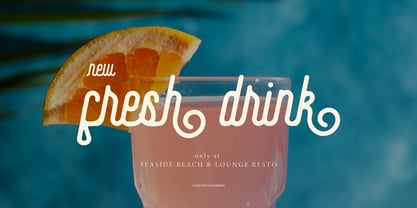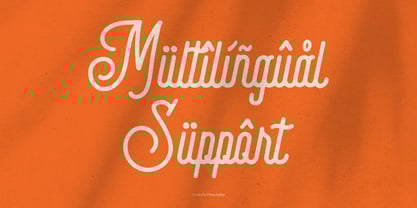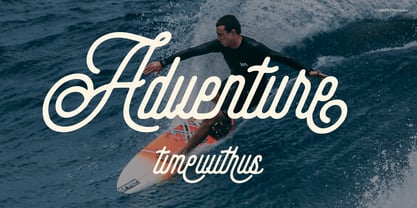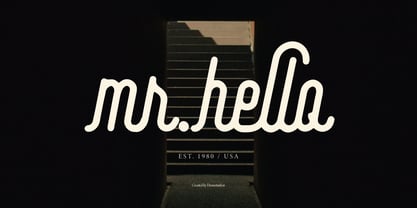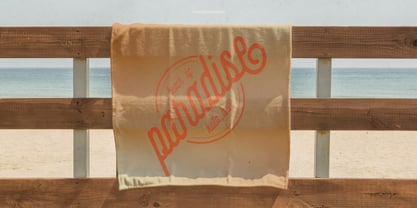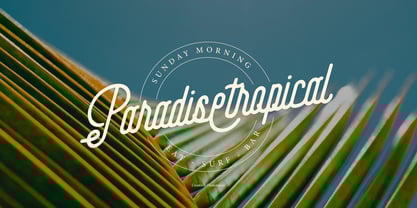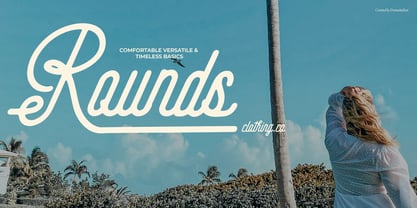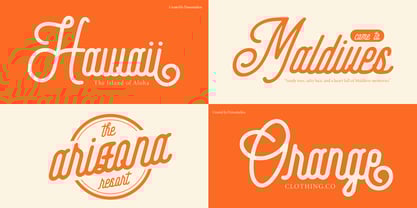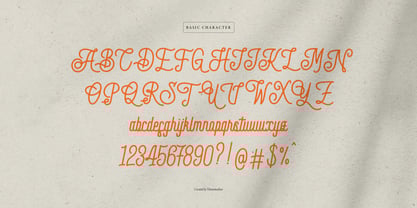
Kimdelim
by Denustudio
The Kimdelim Font Family was designed by Dede Nugraha and published by Denustudio. Kimdelim contains 2 styles and family package options. More about this family
Kimdelim | Monoline Script, from Denustudios, suitable for any projects such as: logos, branding projects, homeware designs, product packaging, mugs, quotes, posters, shopping bags, t-shirts, book covers, name card, invitation cards, greeting cards, label, photography, watermark, special events, and all your other lovely projects that need a Monoline Script taste.
• Alternate and Ligature
• Fonts include multilingual support